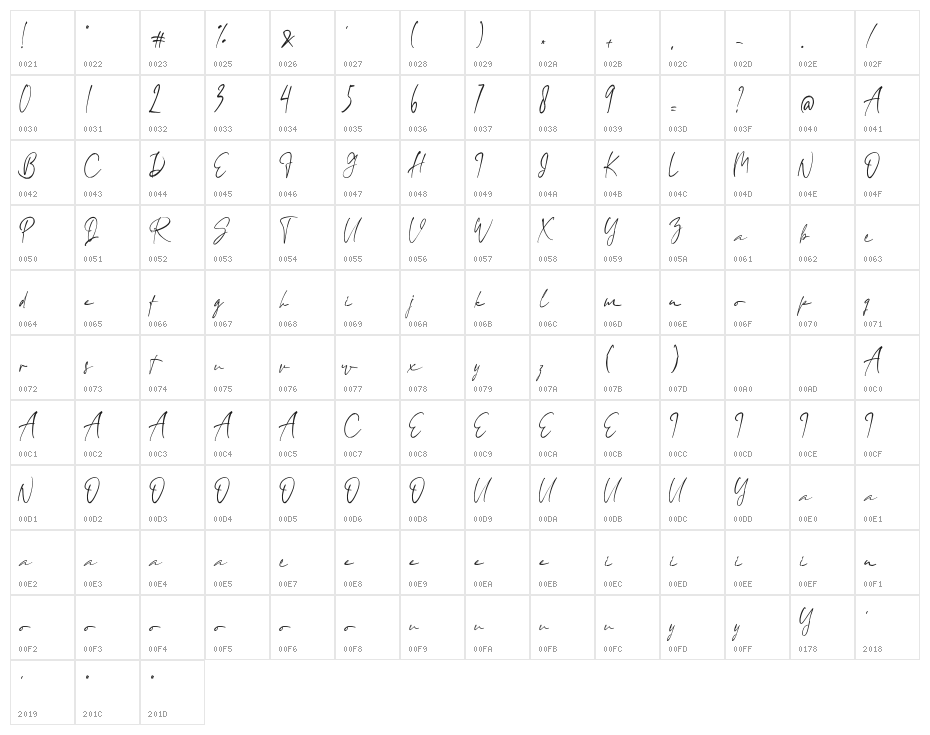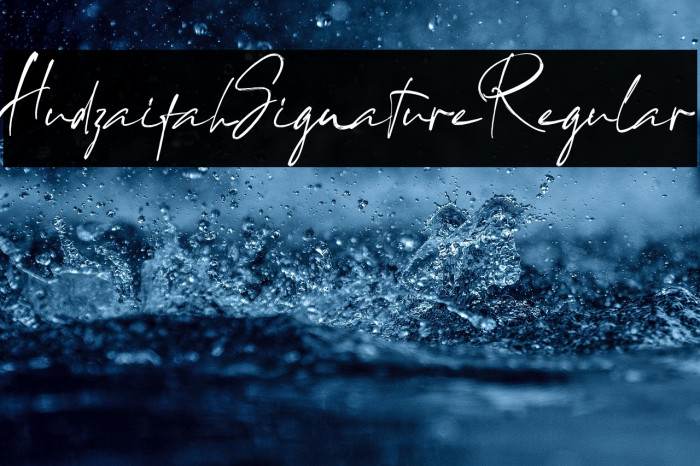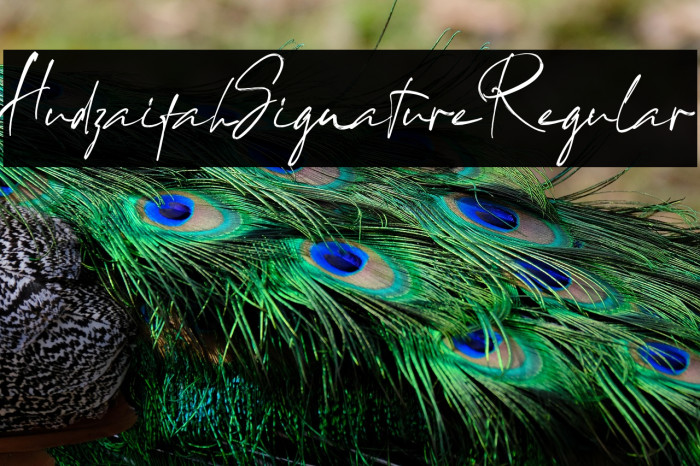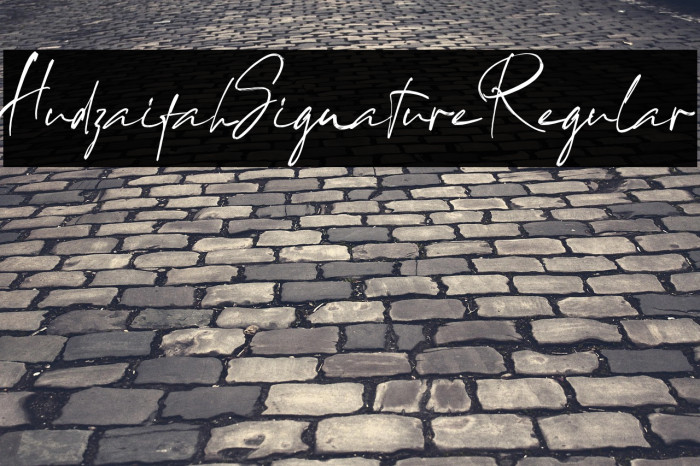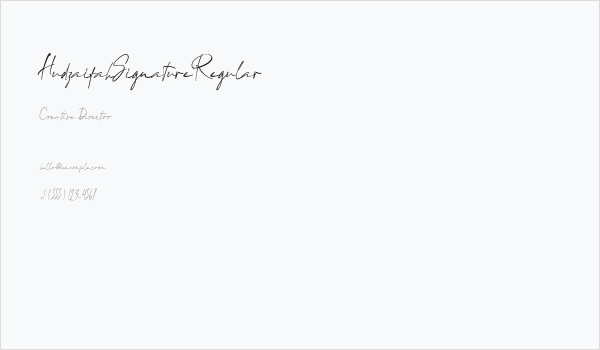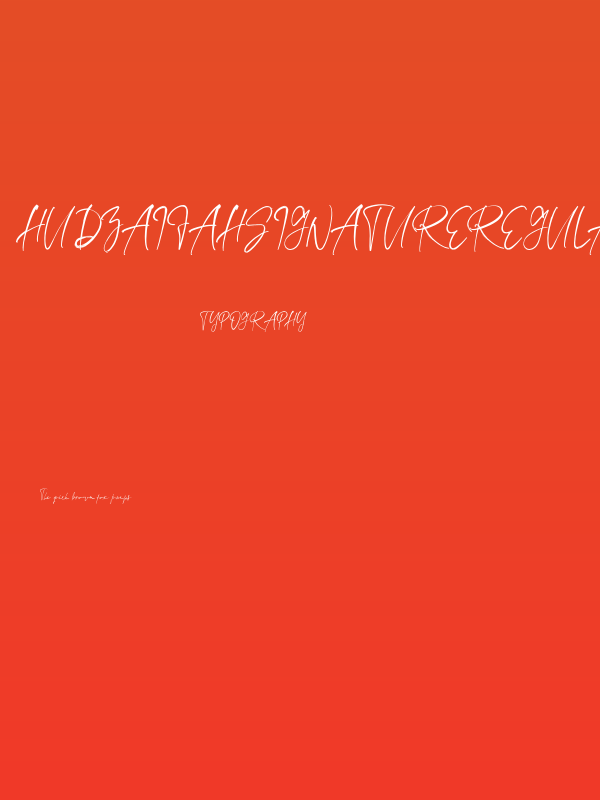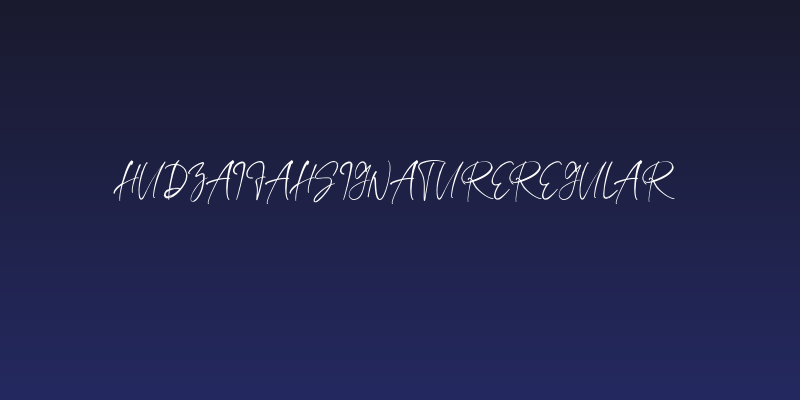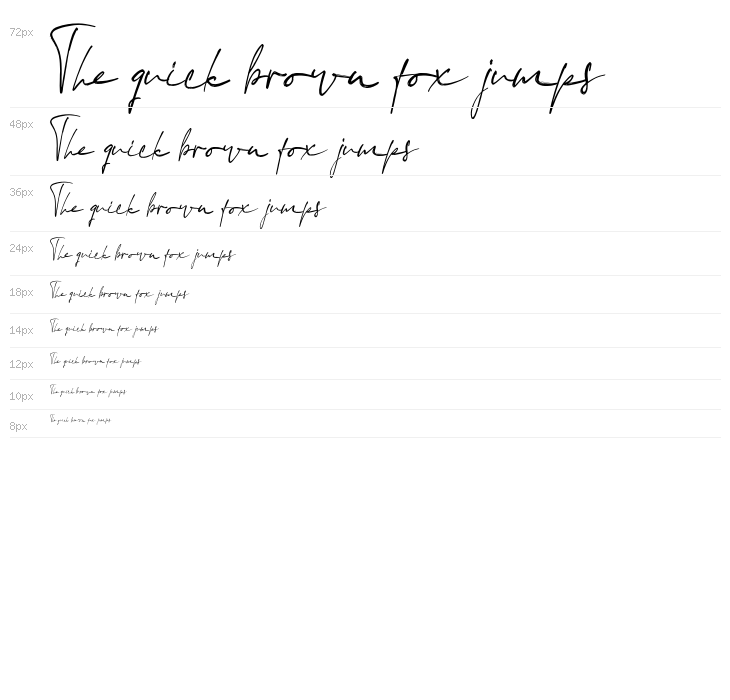
HudzaifahSignatureRegular Font
HudzaifahSignatureRegular Description
This font exudes a personal and artistic flair, characterized by its flowing, cursive style that mimics natural handwriting. The letters are elegantly connected, with varying stroke widths that add a dynamic and lively feel. The uppercase characters are bold and expressive, while the lowercase letters maintain a consistent fluidity, enhancing readability. Numbers and special characters are crafted with the same attention to detail, ensuring a cohesive look across all elements. This font is perfect for projects that require a touch of elegance and individuality, such as invitations, branding, or personal notes.
| Use Case | Logos, Invitations, Personal notes |
| Proposed Projects | Ideal for wedding invitations, personal branding, greeting cards, and artistic projects. |